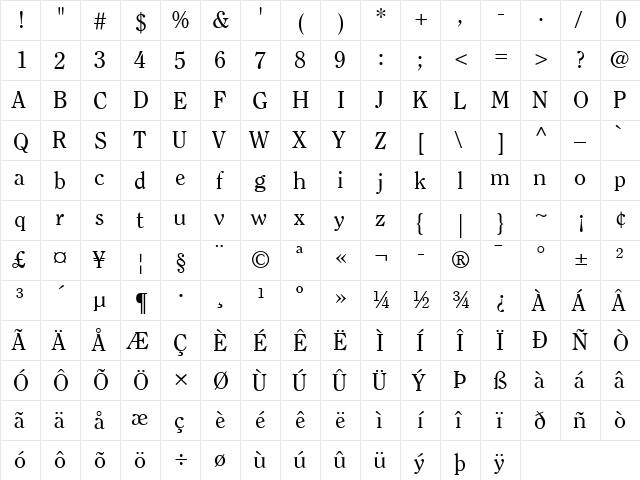
Clearface LT Regular Regular
Design Context for Clearface LT Regular Typeface
Clearface LT Regular offers clean, dependable letterforms without strong stylistic allegiance, making it a practical choice for designers who need flexibility. Its slender proportions lend an understated elegance to any composition.
Pro Tip: Pair Clearface LT Regular with a font of contrasting weight or personality to build a more expressive typographic hierarchy.